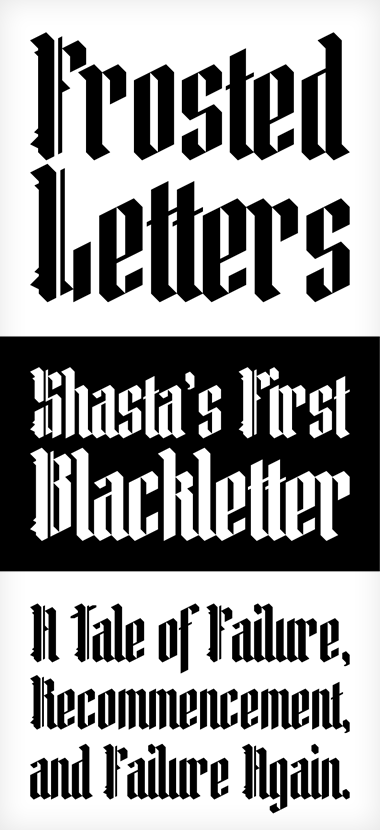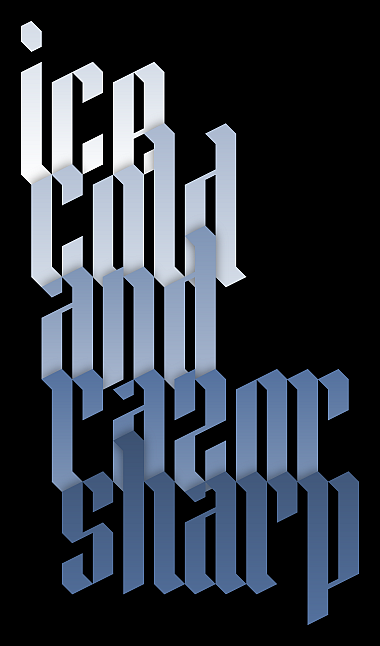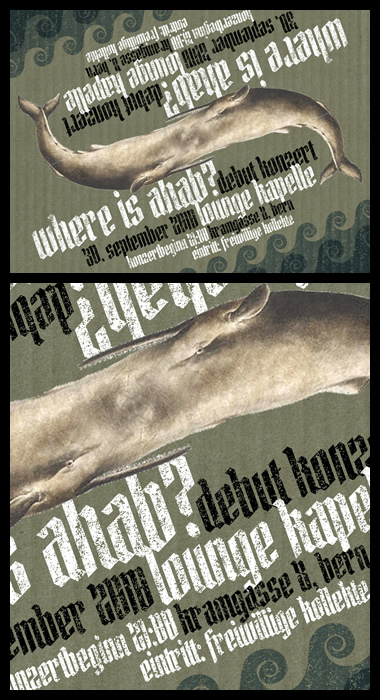
This is my first humble attempt at something blackletterish. It's the third clone of the initial starting point which was based on another blackletter attempt I did some time ago... Seems like I'm not much of a blackletter natural.:) I'm not completely happy with this one neither, but just pumping it out because i don't currently find any motivation or creativity to improve it.
Any suggestions for improvement are welcome! Especially for the T, that one gives me the creeps... And yes, I know kerning can get quite messy and is best done by hand.
nice work I love your Upper case, very original
I'm a big BLack Letter font lover.. this one is realy well done
you're right the T glyph should be review, not sure what to propose but the diagonal line is not in harmonie with the rest of the alfphabet, maybe a straight T can be bowring but work
But keep the diagonale for the lower t... those one look realy great
The T can be a bit of a devil - it was one of my problem children when doing RM Blacklet and RM White Letter
PS: The second sample is a work of art.
I changed the T now, according to Upixel's recommendation of a horizontal bar. Looks definitely better to me...
In fact, I'm a bit jelaous... This is definitely a design I wish I create ;)
I prefer the second proposition, I know it's more conventionnal but more readable.
In the first proposition the Th... can be interpret like N.
Et oui, la deuxième solution, comme tu l'avais proposé, est clairement mieux. De toute façon une chose qui me dérange toujours un peu dans cette police est qu'elle semble caler vers la gauche avec toutes les diagonales; le T avec la barre horizontale est dans ce sens une contrebalance excellente.
Je dois avouer que ton Design a toutes les qualités d'une Blackletter en plus d'être original et contemporain.
What I like about your design is the modernist of it, A Black Letter is comming out from and old Era (from 12th to 17th), and Frostletter is very "contemporain", so you have this marvelous mix in it. Bravo again!